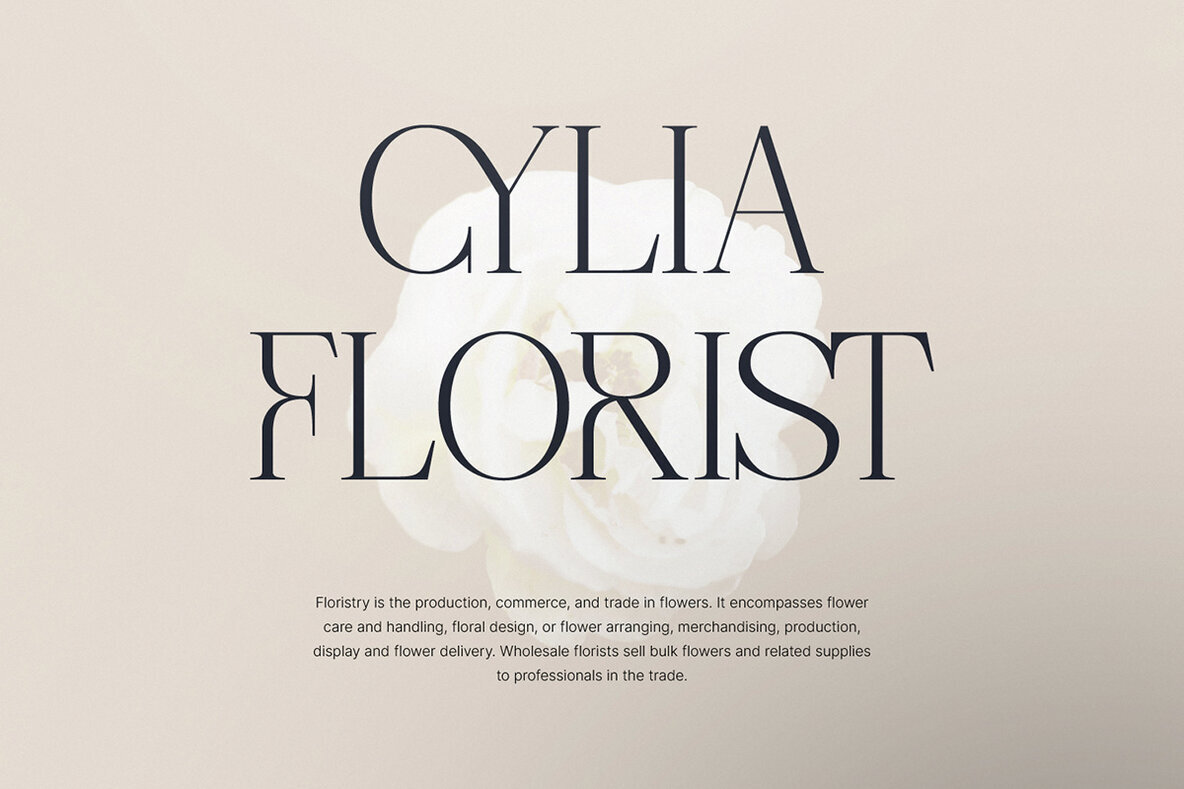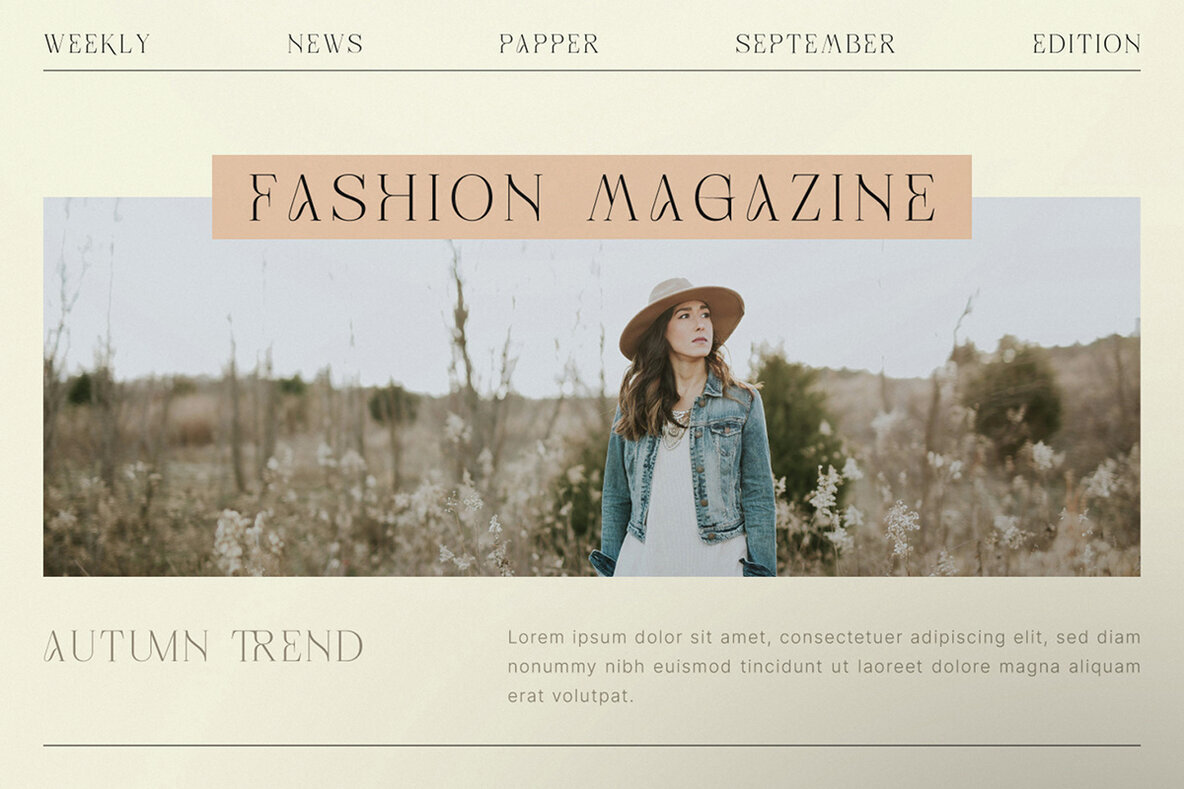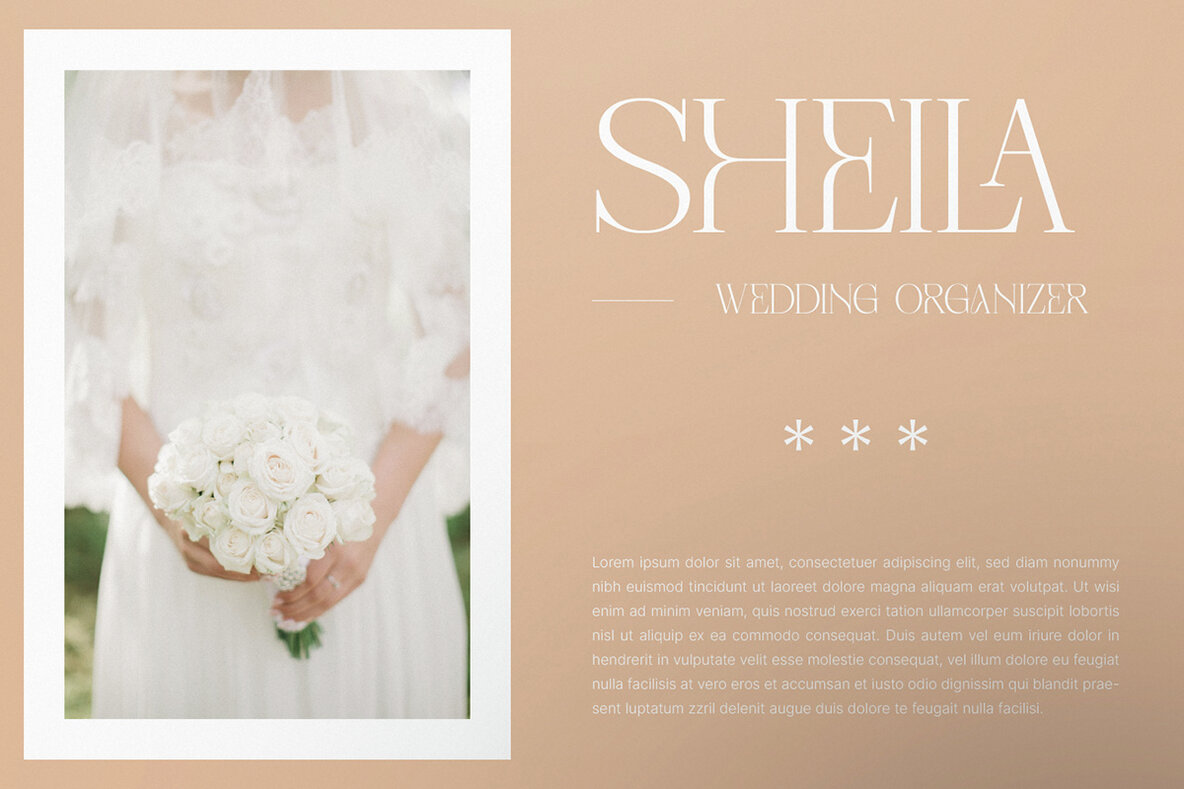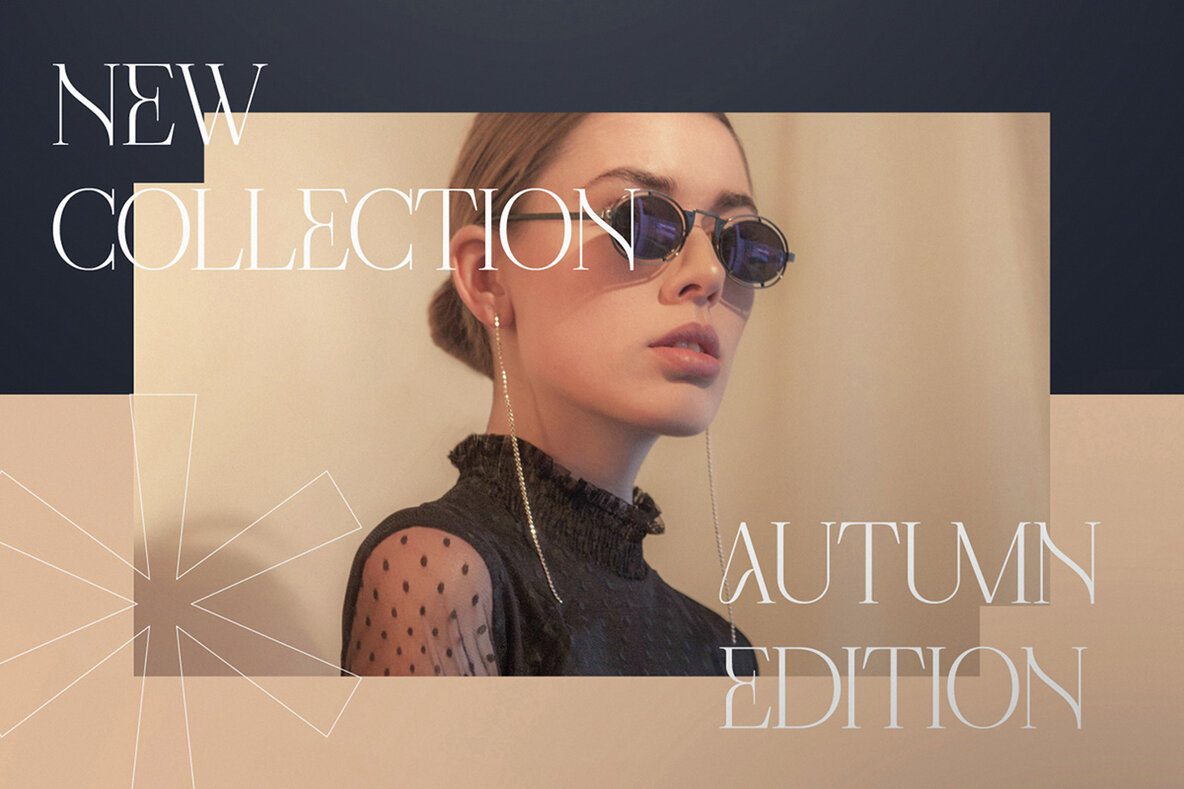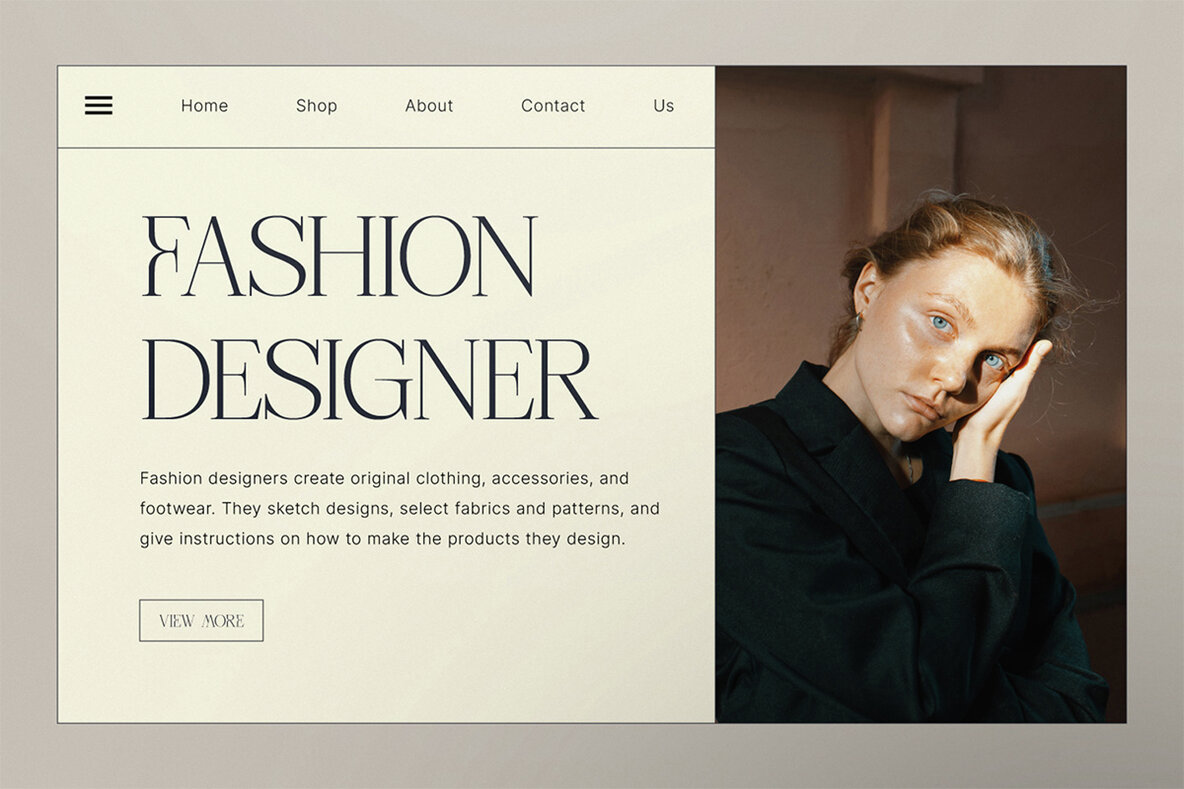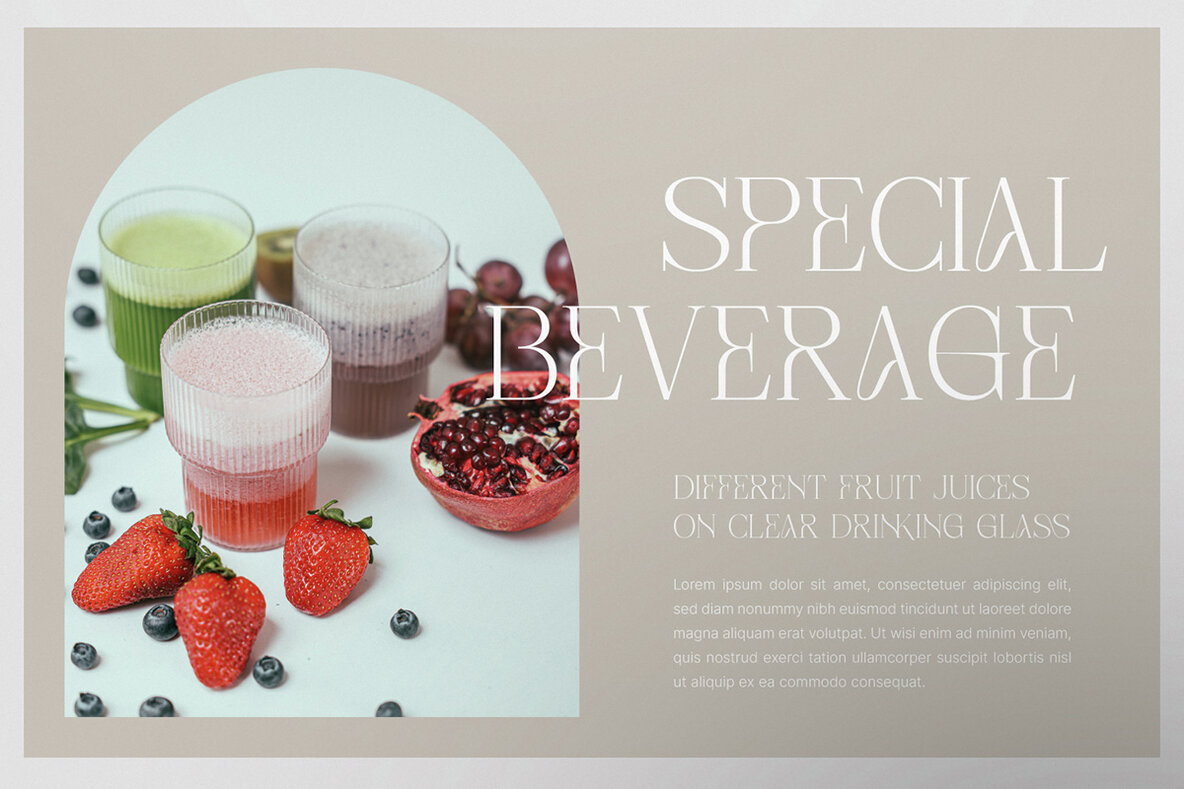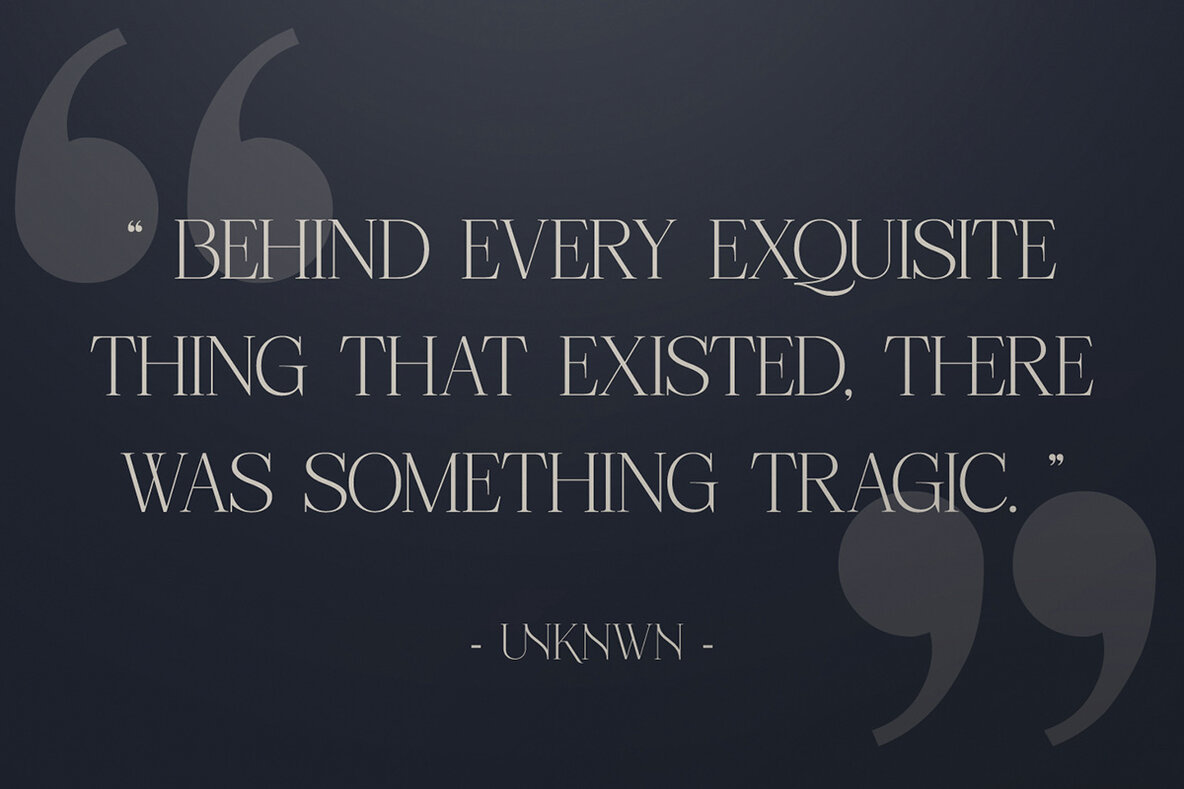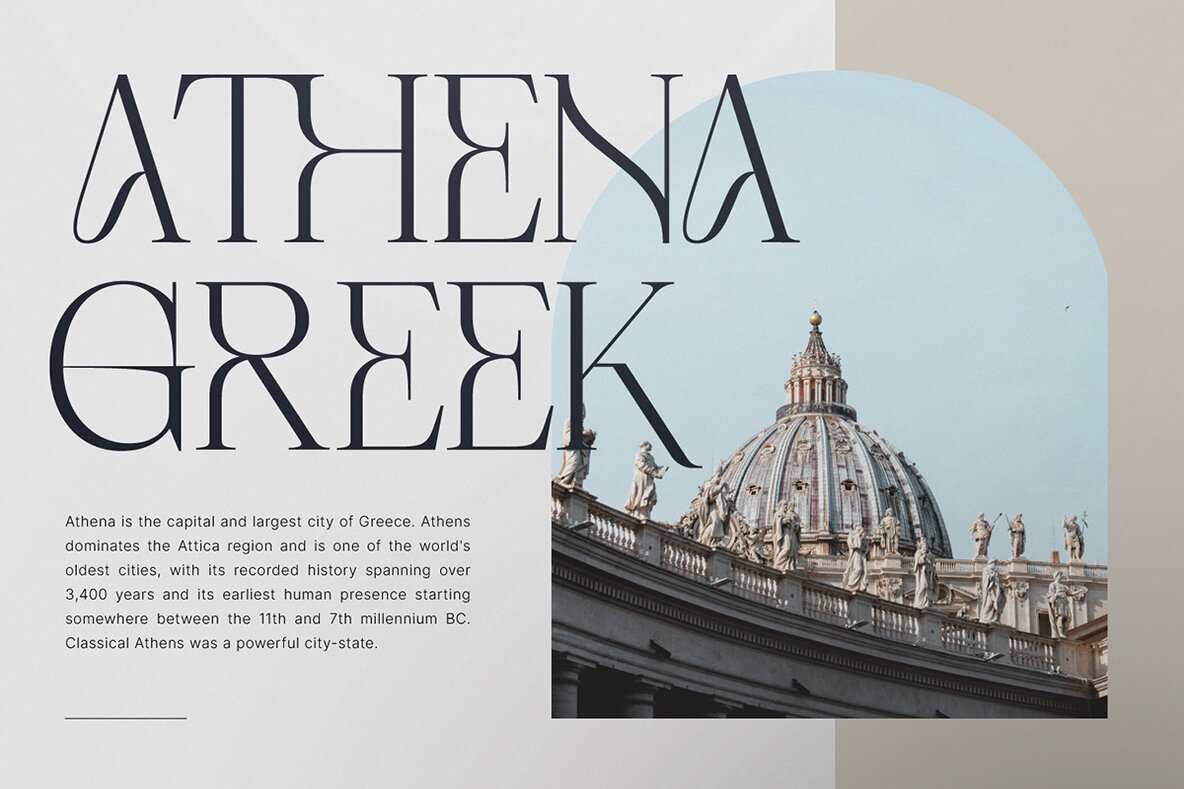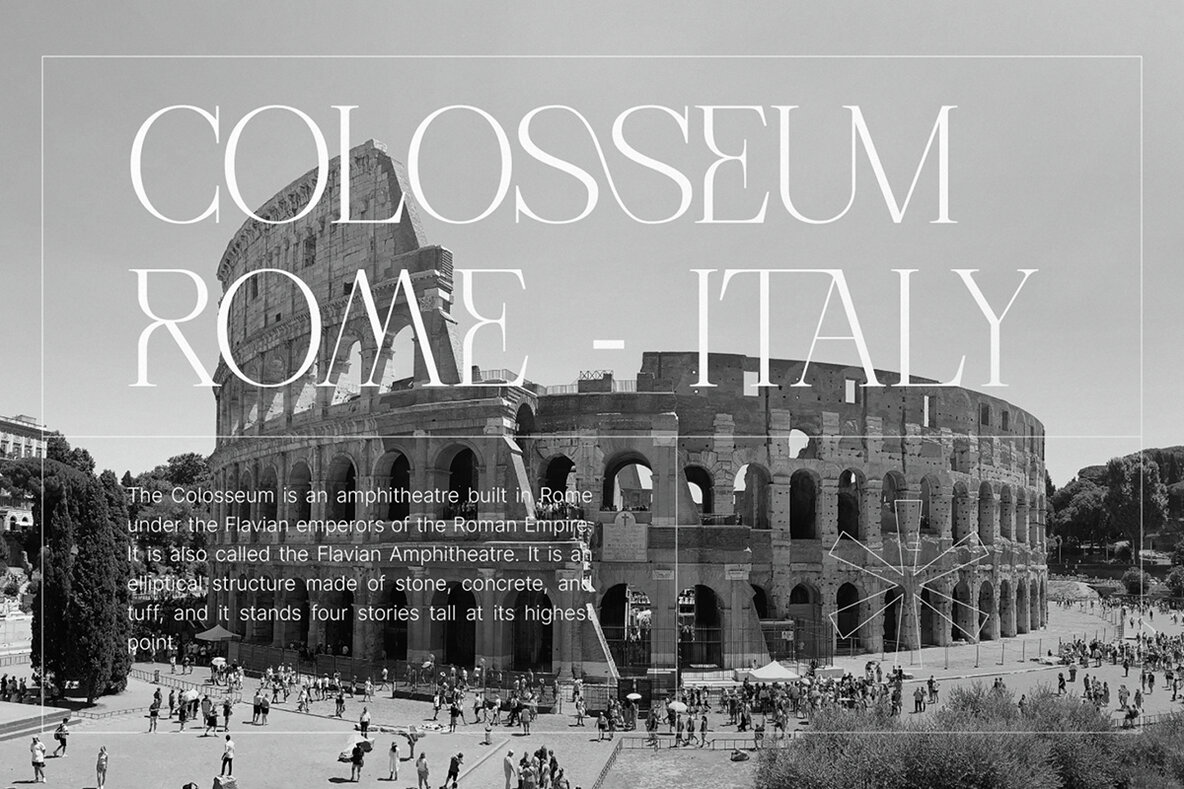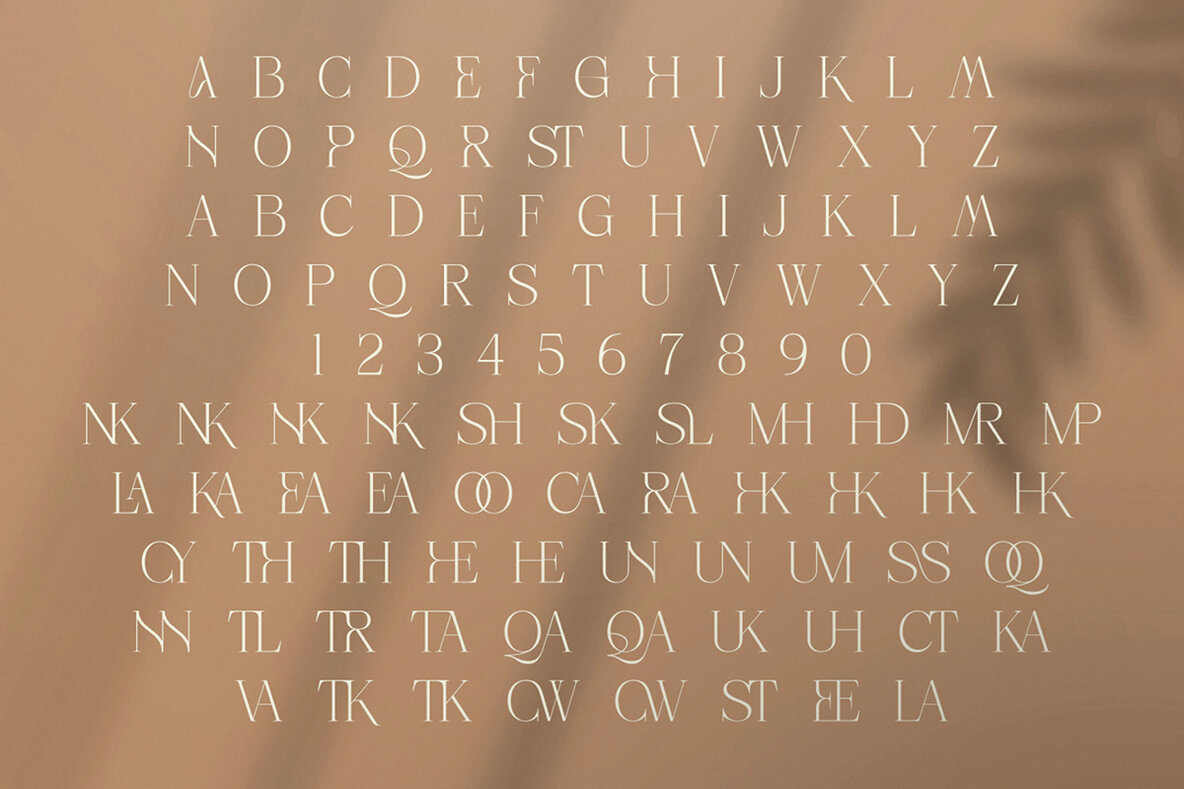
Aqala Display Font
Aqala Display Regular
Aqala Display is a versatile typeface designed to bring a unique flair to your creative projects. This font offers a broad selection of alternate letters and ligatures, making it easy to customize your designs. Ideal for editorial work, logo creation, clothing branding, product packaging, and magazine headers, it also serves as an elegant text overlay for any background image. Its stylistic alternates and ligatures add a personal touch, giving you the freedom to select the perfect characters for your project needs.
In addition to its aesthetic appeal, Aqala Display is functional and accessible. It includes uppercase and lowercase stylistic alternates, as well as numerals and punctuation, supporting a wide array of languages including English, French, and German, among others. The font is PUA encoded, ensuring all its features are accessible on any design software. Whether you're aiming for a classic or contemporary look, this typeface offers the flexibility and range to achieve your vision.